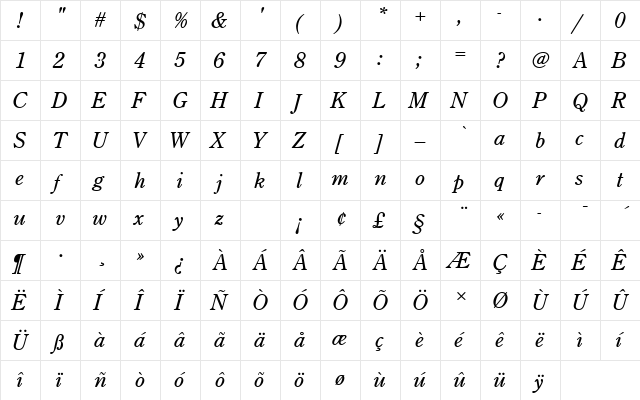
CenturyOldStyTRegItaRo1 Regular Font Preview
CenturyOldStyTRegItaRo1 Regular
CenturyOldStyTRegItaRo1 Regular Font Details
Design Context for CenturyOldStyTRegItaRo1 Typeface
CenturyOldStyTRegItaRo1 offers clean, dependable letterforms without strong stylistic allegiance, making it a practical choice for designers who need flexibility.